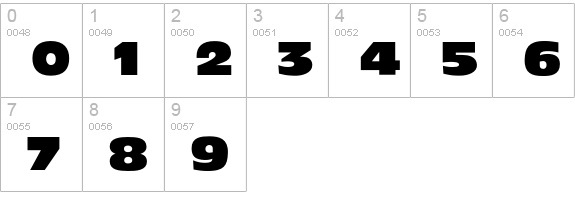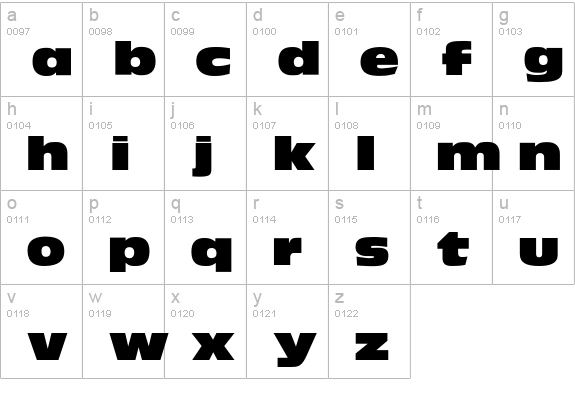
OliveAntiqueBlackExt Font Details
OliveAntiqueBlackExt is a timeless and elegant font that exudes sophistication and charm. Its classic and refined appearance makes it the perfect choice for projects that require a touch of vintage flair. The bold strokes and intricate details of OliveAntiqueBlackExt add a sense of grandeur to any design. This stunning font is available for free download at FontsMarket.com, making it easily accessible to all designers and creatives looking to add a touch of old-world charm to their projects. Whether used for branding, invitations, posters, or any other creative endeavor, OliveAntiqueBlackExt is sure to make a lasting impression with its unique and distinguished style. Elevate your designs with this exquisite font and bring a touch of timeless elegance to your work.